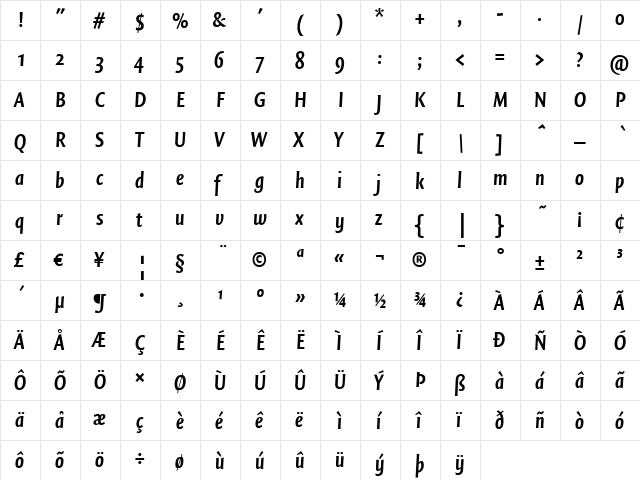
QuadraatSansCon Bold Italic
Design Context for QuadraatSansCon Typeface
QuadraatSansCon is a composed and adaptable typeface that performs quietly and consistently across a wide range of design contexts. The dynamic lean of this cut emphasises speed and emphasis in any layout. Its bold stroke weight gives it real presence on the page.